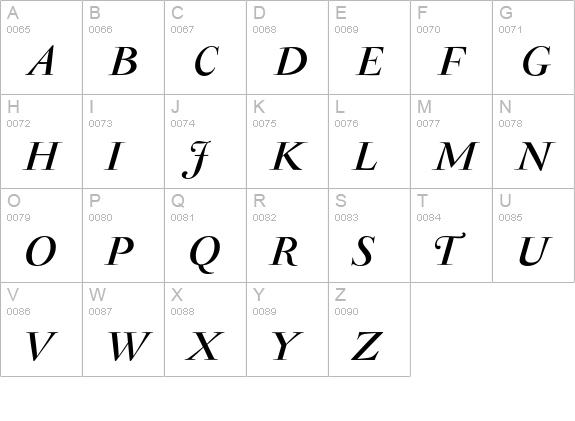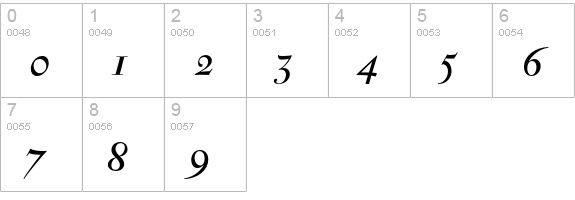
Antique Moderne CE Italic is a distinctive, italic variant in the Antique typeface family \xE2\x80\x94 well suited to design and typography projects.
Antique Moderne CE Italic font is a timeless and elegant typeface that seamlessly blends vintage charm with a modern twist. Its graceful curves and delicate serifs give any design a sophisticated and classic feel. The italic style adds a touch of flair and elegance, making it perfect for projects that require a touch of sophistication. This exquisite font is not only visually stunning but also versatile, making it suitable for a wide range of design projects such as invitations, posters, branding, and more. Whether you are creating a vintage-inspired wedding invitation or a sleek modern logo, Antique Moderne CE Italic font will add a touch of timeless elegance to your design. The best part is that Antique Moderne CE Italic font is available for free download at FontsMarket.com. So, whether you are a professional designer looking to add a touch of class to your projects or a hobbyist in search of a beautiful typeface for your personal projects, this font is the perfect choice. Download Antique Moderne CE Italic font today and elevate your designs to a whole new level of sophistication.